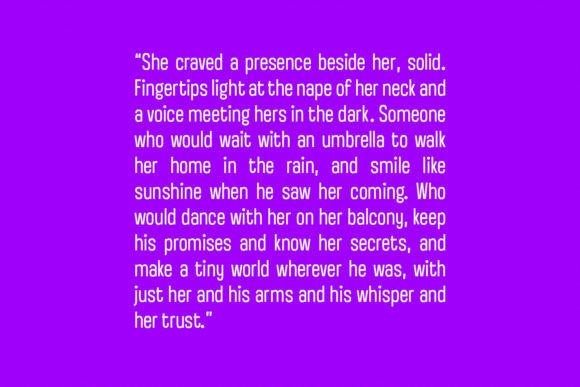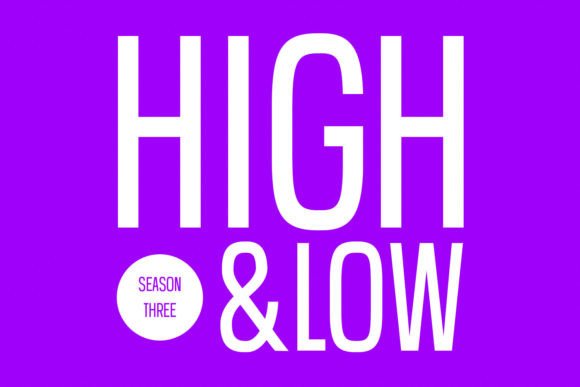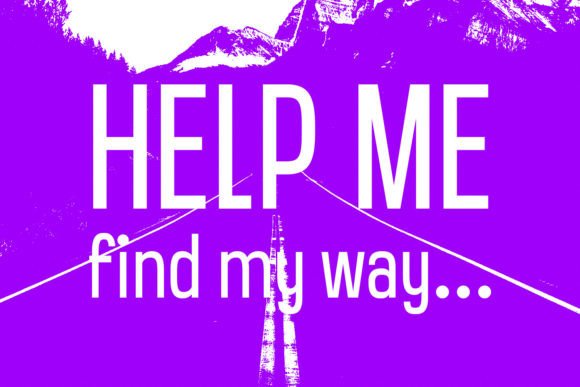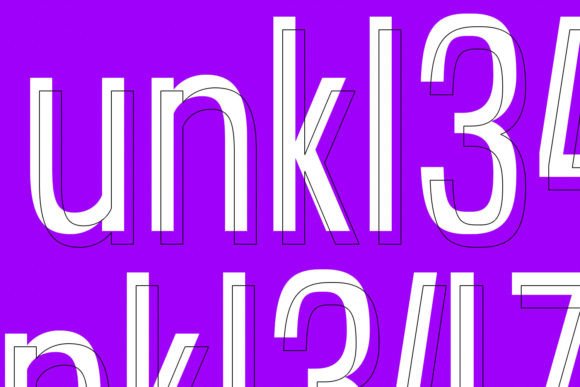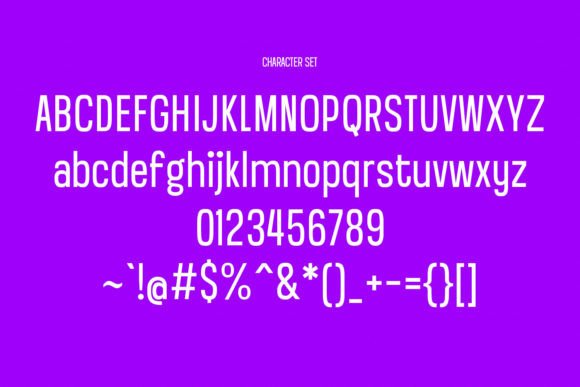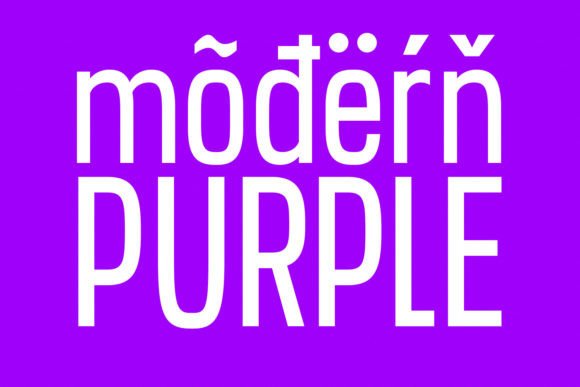
Introducing Bigfutz Font: The Modern Decorative Sans Serif for Creative Projects
In the world of typography, a new font has emerged that’s making waves among designers and crafters alike. Say hello to Bigfutz, a modern decorative sans serif condensed font that’s perfect for adding a touch of fun and personality to your projects. With its medium stroke, fun character, and features like ligatures and alternates, Bigfutz is poised to become your go-to font for a wide range of creative endeavors.
What Makes Bigfutz Stand Out?
Bigfutz is not just another font; it’s a versatile tool designed to elevate your designs. Here are some key features that make Bigfutz a standout:
- Modern Decorative Sans Serif: Bigfutz boasts a sleek, contemporary look that’s perfect for projects that demand a modern aesthetic.
- Condensed Design: Its condensed style makes it ideal for titles, headings, and short texts where space is limited but impact is crucial.
- Medium Stroke: The medium stroke provides a balance between visibility and elegance, making it suitable for a variety of applications.
- Fun Character: Bigfutz isn’t just about being modern and sleek; it also has a playful side, adding a bit of whimsy to your designs.
- Ligatures and Alternates: With ligatures and alternates, you have more creative control over your text, allowing for a customized look that can make your project stand out.
- Multilingual Support: Bigfutz supports over 100 languages, making it a fantastic choice for global projects or those targeting a diverse audience.
Bigfutz’s versatility means it’s suitable for a wide array of projects. Here are some ideas to get you started:
- Logo Design: The unique and modern look of Bigfutz makes it perfect for logos that need to stand out and convey a contemporary vibe.
- Social Media Graphics: Create eye-catching social media posts, banners, and stories with Bigfutz’s fun and engaging style.
- Movie and Book Titles: Add a professional yet creative touch to your movie titles, book covers, and subtitles with Bigfutz’s condensed and impactful design.
- Text and Lettering Projects: Whether you’re working on short texts or long letters, Bigfutz’s readability and style make it an excellent choice.
- Secondary Text Font: Pair Bigfutz with script or serif fonts for a layered look that adds depth and interest to your designs.
Tips for Using Bigfutz Effectively
To get the most out of Bigfutz, consider the following tips:
- Mix and Match: Don’t be afraid to experiment with Bigfutz’s ligatures and alternates to find the perfect combination for your project.
- Pair Thoughtfully: When using Bigfutz alongside other fonts, choose complementary styles that enhance the overall look of your design.
- Consider Your Audience: Bigfutz’s playful nature makes it suitable for projects targeting a younger audience or those looking for a modern edge.
Bigfutz font is a game-changer for designers and crafters looking to add a modern, decorative touch to their projects. Its unique blend of style, versatility, and fun makes it an invaluable tool in your typography arsenal. Whether you’re creating logos, social media graphics, or titles for movies and books, Bigfutz is sure to make your work stunning. So why wait? Dive into the world of Bigfutz and let your creativity shine like never before!